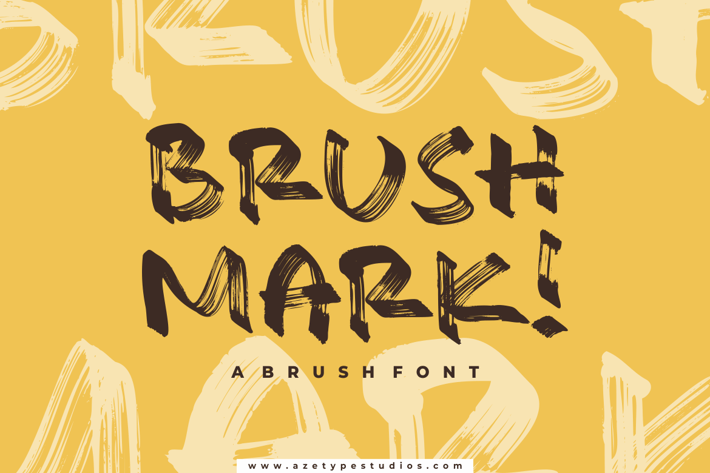
Brush Mark
Introducing, Brush Mark is a texture brush font with the strong looks suitable for your design project needs, such as; strong theme, adventure, wild theme, social media posts, your quotes, overlays on images, tagline logos, posters, print needs, website banners, and more.
A set of uppercase and lowercase glyphs
Number, symbol, and punctuation
Multilingual accent ( ́ ̂ ̀ ̊ ̈ ̃ ̄ ̌ ̆ ̨ ̧ ̇ ̋ ̒ ̦ ̍ ̶ )
Some multilingual glyphs (ÆØŒæðøœß¡¿)